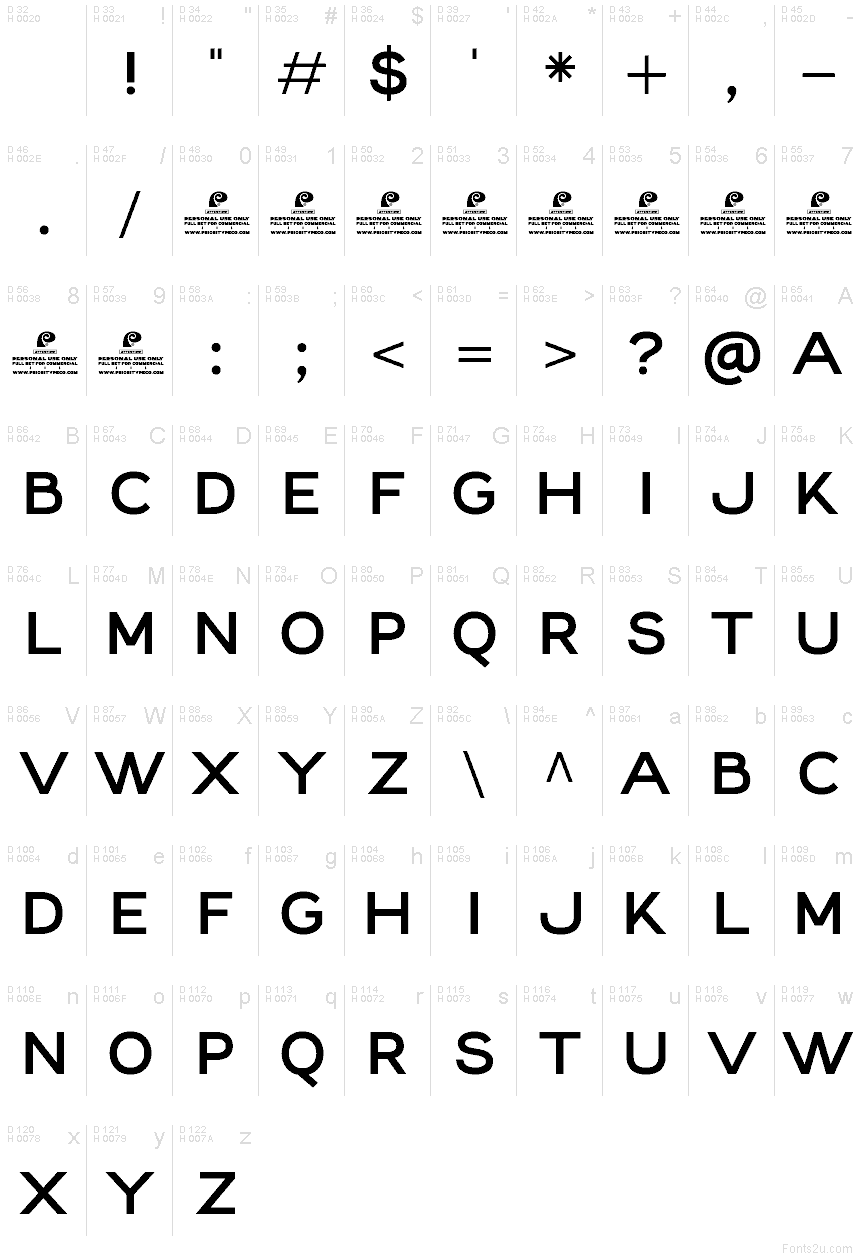
Loede DEMO Bold
Loede Bold font by Prioritype Co is a free sans serif font in the Loede family that nails the sweet spot between strong and friendly. Its broad, even strokes and smooth, straight‑sided curves give headlines real weight, while big, rounded counters keep the tone approachable. The spacing is steady and compact, so words lock up cleanly on a grid and stay readable from billboard scale to a mobile banner.
Using Loede Bold, you can anchor brand wordmarks, packaging, posters, app headers, event signage, and social thumbnails without losing warmth. This free font’s confident rhythm makes short messages snap and longer titles feel orderly. For body copy, pair it with Loede Regular or a neutral grotesk, and add a touch of tracking when setting all caps to keep the texture airy.